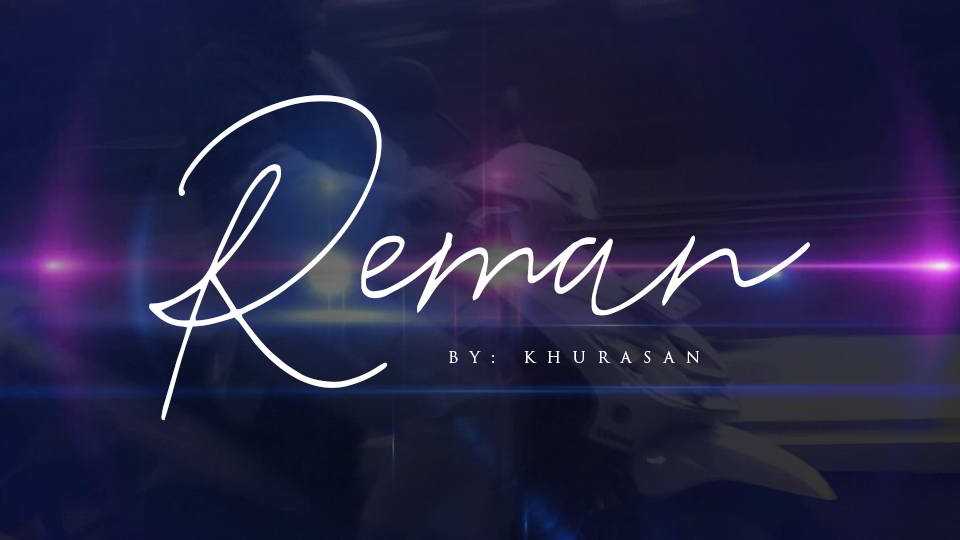
Download Reman font – an elegant monoline signature style script. Great for signature style logos and watermarks, quotes, social media, handcrafted designs and other creative projects.